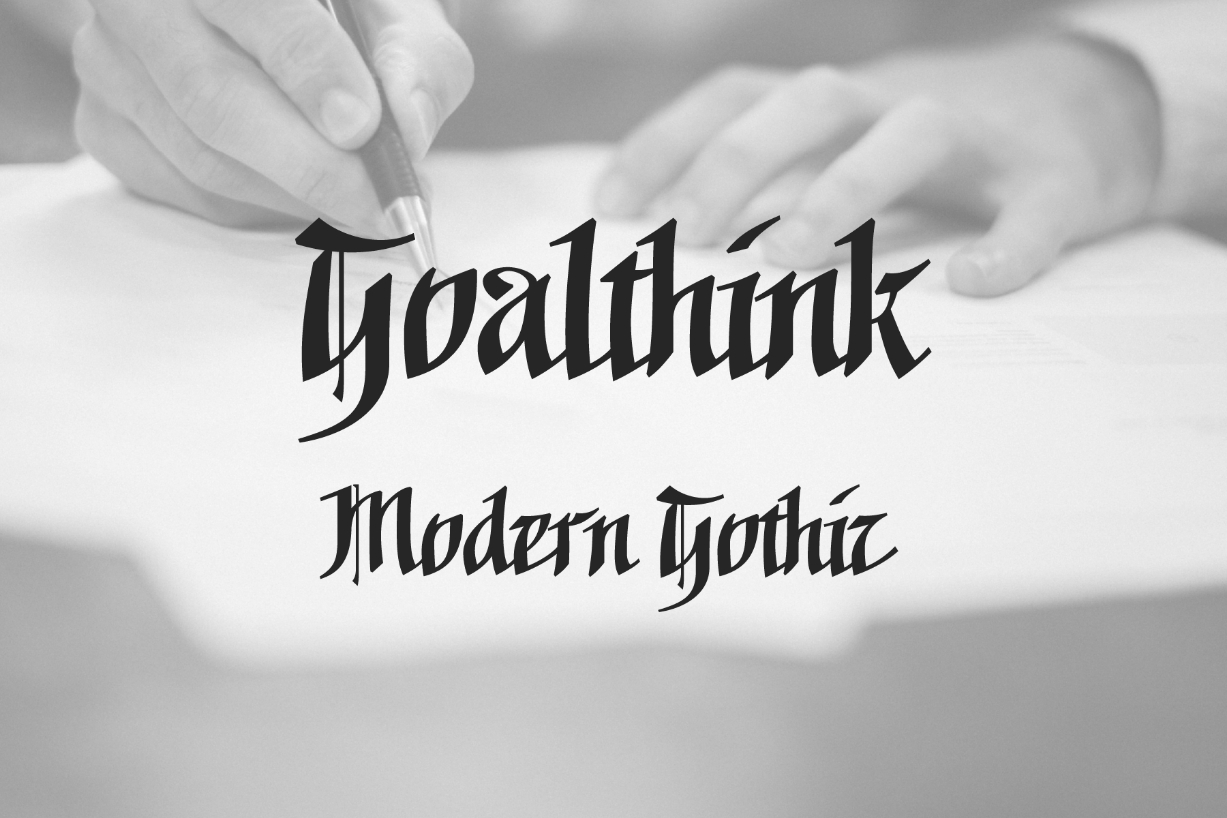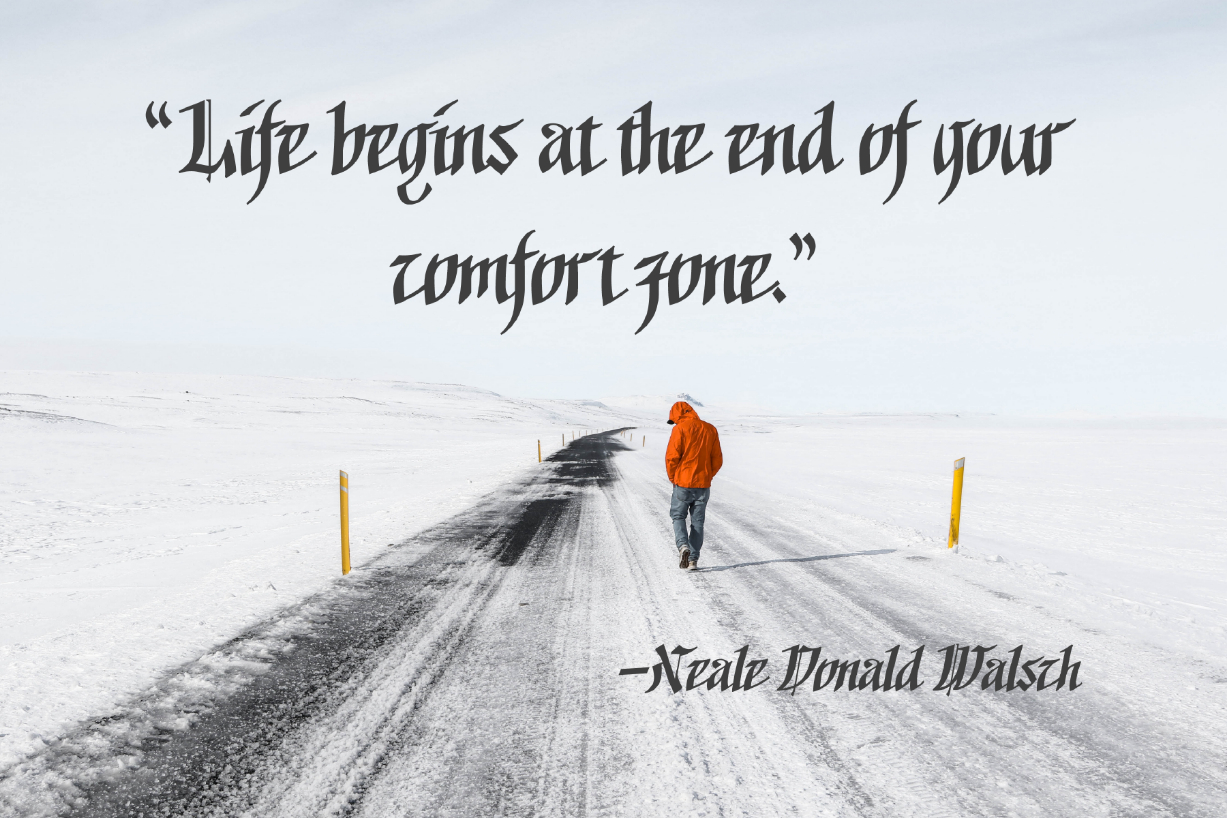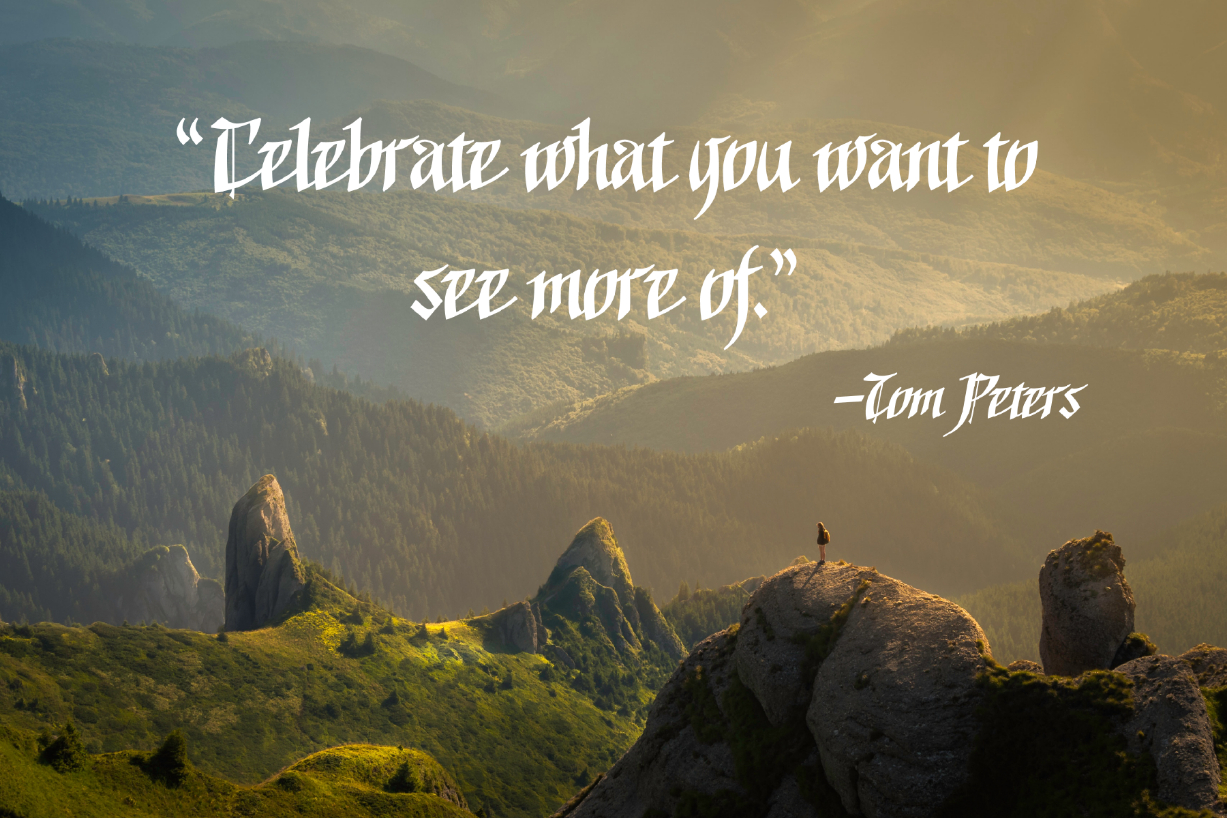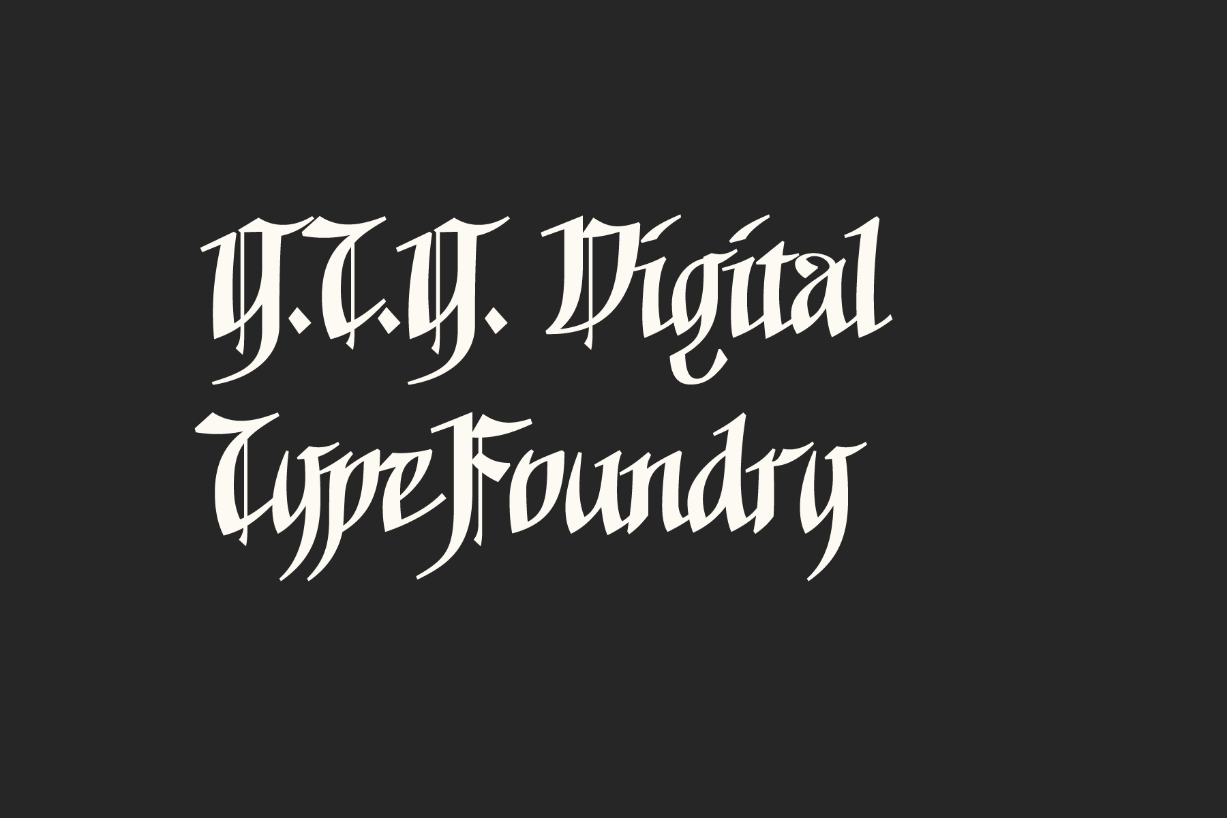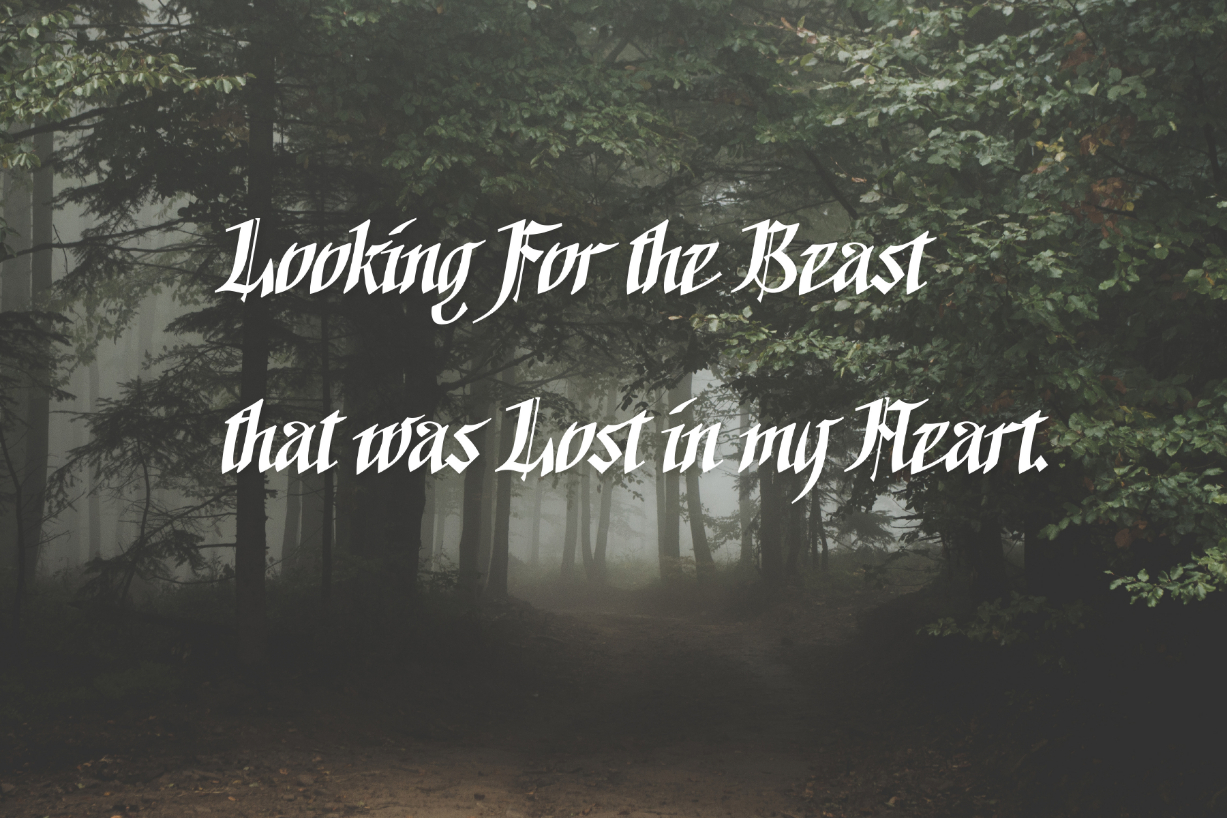
Goalthink Font
About Goalthink Font
Goalthink is a graceful and modern blackletter font. Expertly designed to make your creation look out of this world, this font will look gorgeous on a variety of ideas.